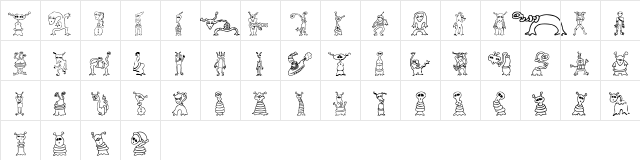
Alien Twits Regular Free Font
Alien Twits Regular
Design Context for Alien Twits
Alien Twits is a composed and adaptable typeface that performs quietly and consistently across a wide range of design contexts.